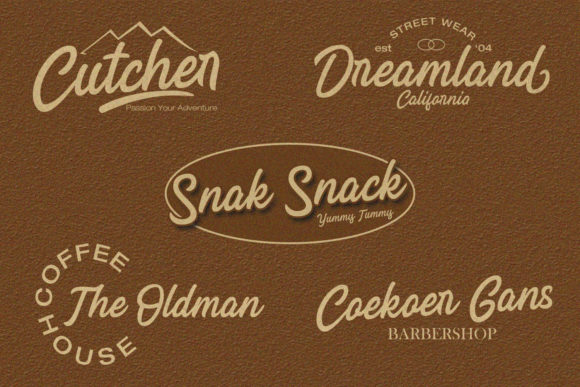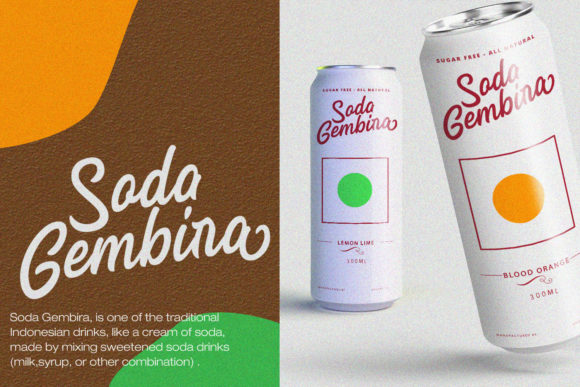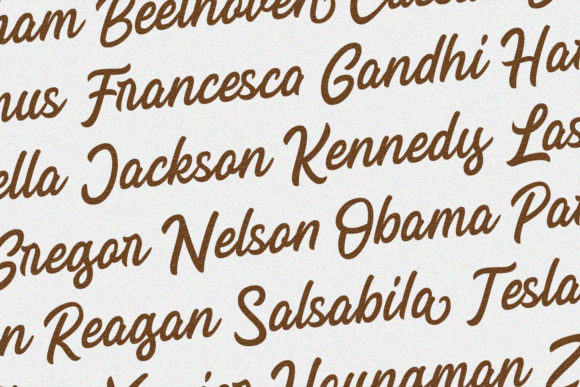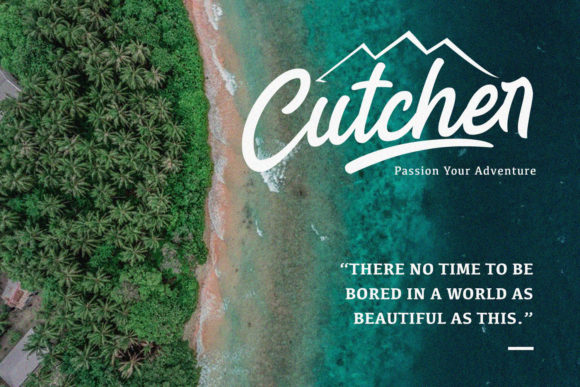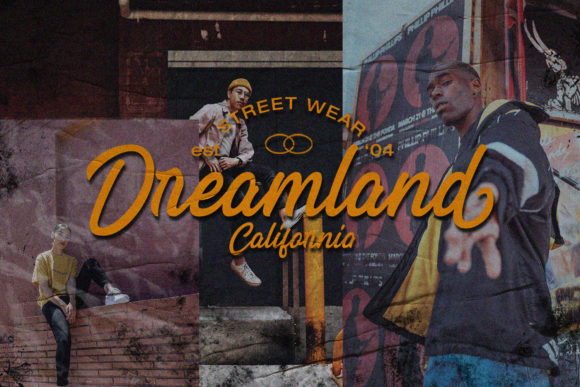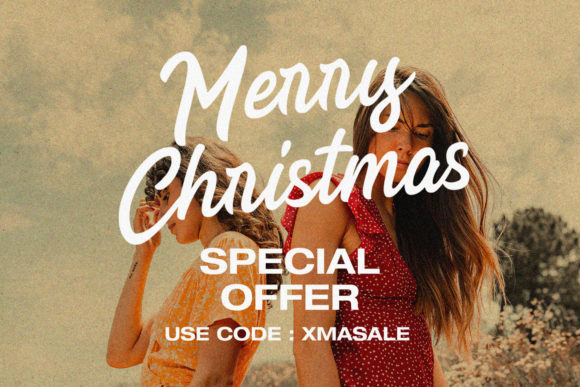
Introduction to Lotterras Font
Do you ever get that feeling when you’re brainstorming a creative project and the perfect font just slips your mind? It’s like that missing puzzle piece that makes your design come together. For designers, finding the right font can be a daunting task, especially when you’re working on a tight deadline. But what if I told you about a stunning script font that’s about to become your new go-to design resource?
Meet Lotterras Font, a beautiful, high-quality script font designed to make your creative projects shine. This versatile font is perfect for logos, social media posts, and so much more. With its elegant, handwritten feel, Lotterras Font adds a touch of sophistication to any design. And the best part? It’s available for free download, complete with a transparent background for seamless integration into your projects.
Key Features of Lotterras Font
- Unique, hand-drawn style with intricate details and textures
- Perfect for use in digital and print design, including logos, graphics, and typography
Honest Review: Lotterras Font
I recently stumbled upon the Lotterras Font, a free download that has been gaining traction in the design community. As a designer, I was excited to give it a try and see if it lived up to the hype.
What works well: ✨ The Lotterras Font has a unique, modern aesthetic that’s perfect for creative projects. The font is highly legible, making it ideal for body text and headings. I also appreciate the transparent background, which allows for seamless integration with any design.
What doesn’t work so well: ⚠️ While the Lotterras Font is a high-quality design resource, it’s not without its limitations. The font’s limited character set may be a concern for designers working on complex projects. Additionally, the font’s weight and style options are somewhat limited, which may not be suitable for every design scenario.
Overall, I’m impressed with the Lotterras Font, despite its limitations. As a free download, it’s a great resource for designers on a budget. With a bit of creativity, you can work around the font’s limitations and create stunning designs.
- Unique, modern aesthetic ideal for creative projects
- Highly legible, making it suitable for body text and headings
- Limited character set and weight/style options
Tips for Getting the Most Out of Lotterras Font
Use Lotterras Font in combination with other high-quality design elements to create a visually appealing design. Experiment with different font sizes, colors, and styles to achieve the desired effect. You can also use the font in conjunction with images or graphics to create a unique and creative project.
Lotterras Font is ideal for creative projects such as logos, brochures, posters, and social media graphics. You can also use it in presentations, documents, and websites to add a touch of elegance and sophistication.